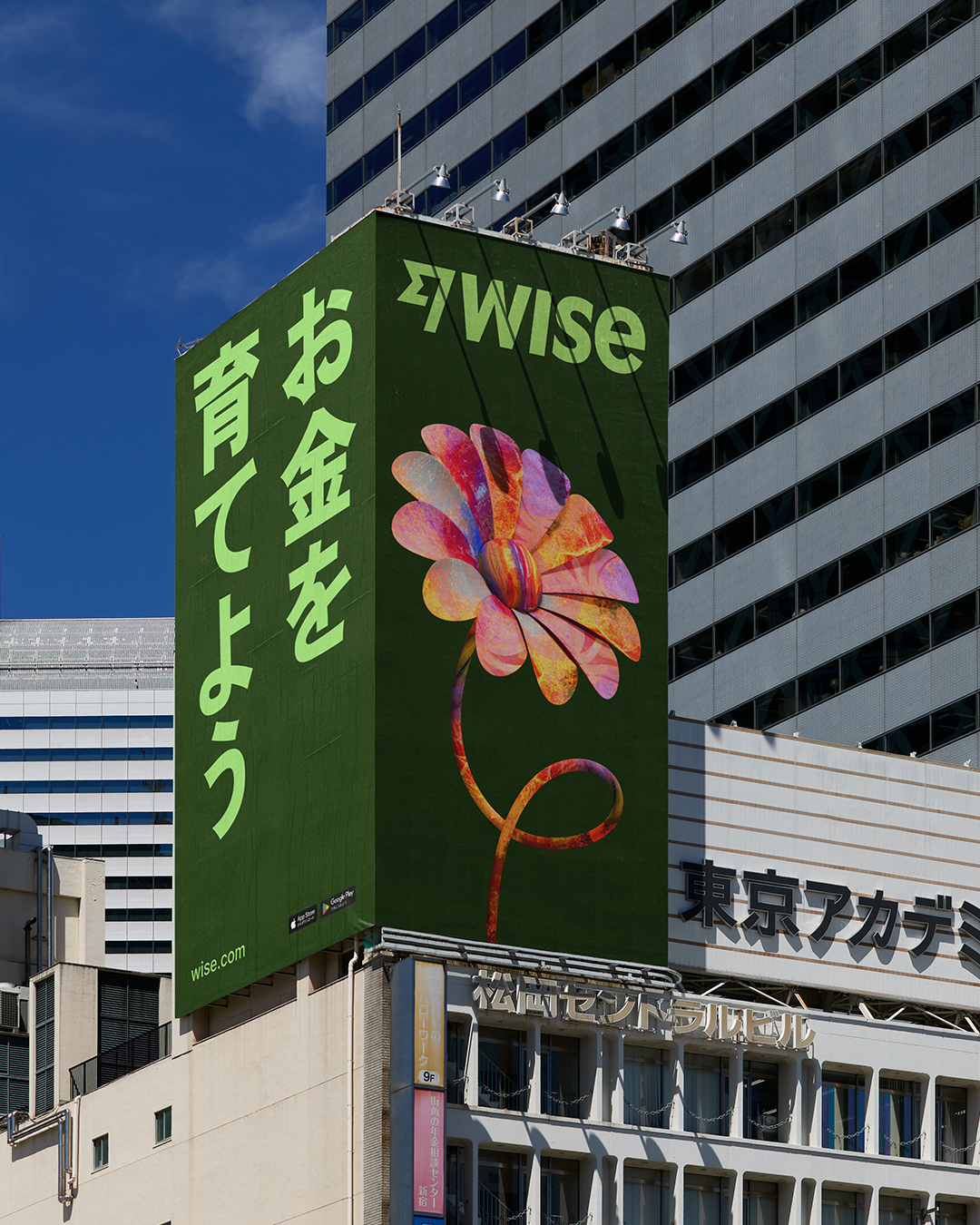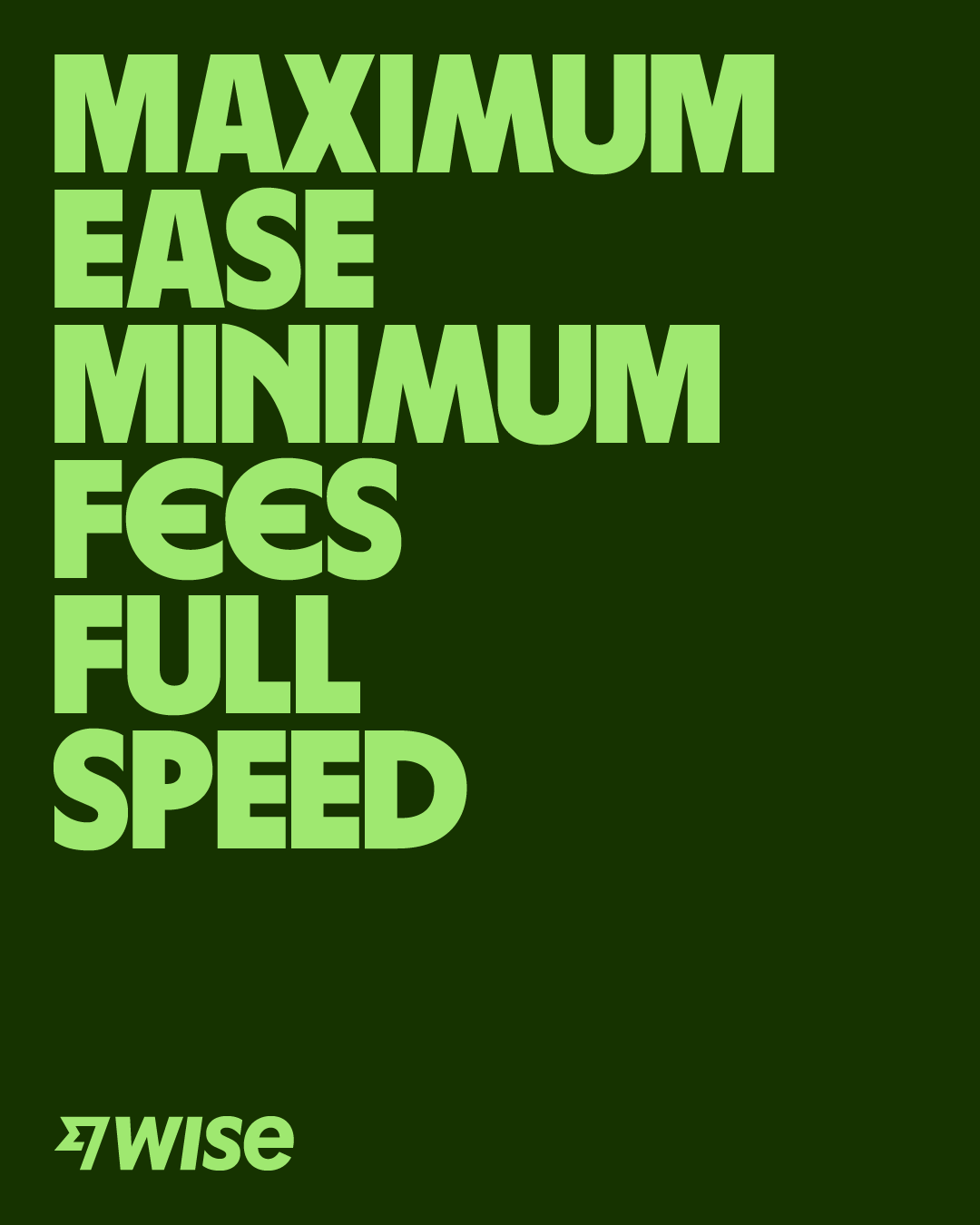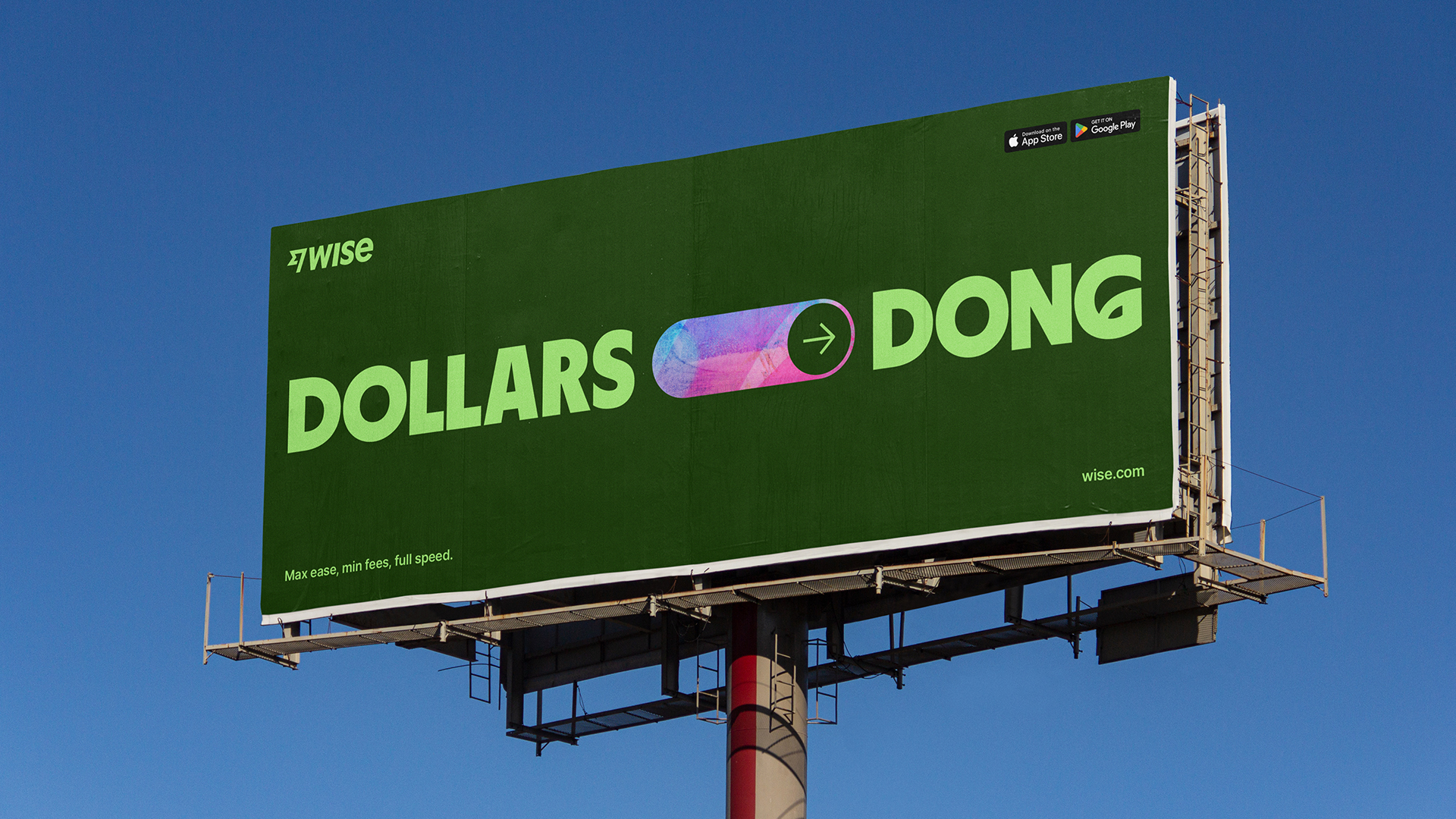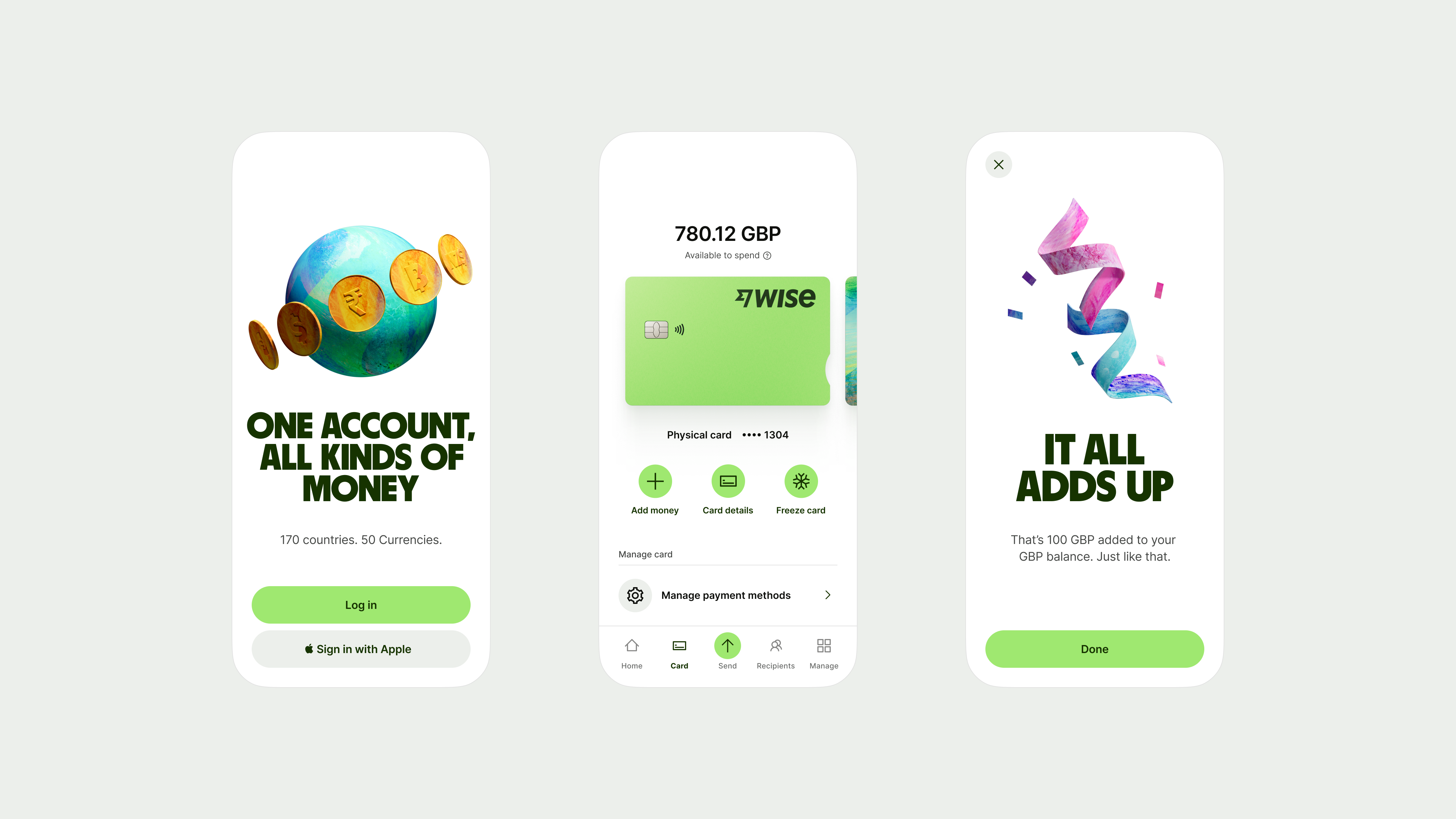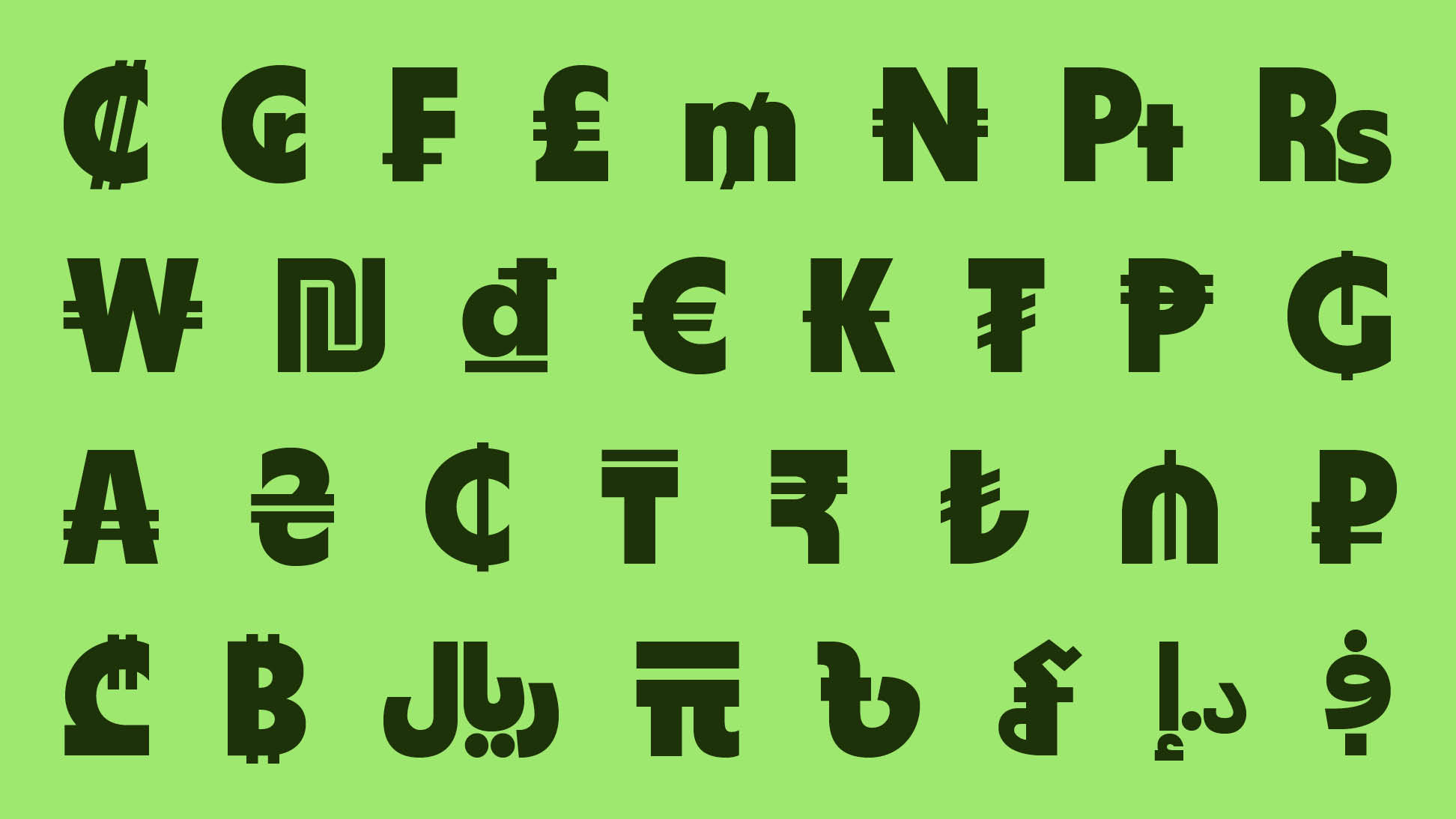
Wise
Typeface
Wise was launched 12 years ago, and the private banking market has never been the same since.
By changing how the world moves its money – making it even faster, cheaper and fairer than banks ever would – Wise has already empowered over 16 million people, saving them £1.5 billion (compared to bank fees) in 2022 alone.
Working with Ragged Edge to help direct the shift, Wise’s disruptive attitude continued when the brand pivoted from being a money transfer platform to a fully-fledged banking service. Beginning with a redrawn logo, we collaborated with the London-based design agency to craft a modification and extension of Feliciano’s Parafina typeface for the brand – expanding its language support to 361* different scripts across Latin, Cyrillic and Greek, whilst providing countless adjusted currency symbols alongside the basic Latin set.
In addition to the sans serif’s more rigorous, pragmatic functions, we also introduced a finely tuned set of custom alternates, carefully adjusting the regularity of their appearance in words and how they would integrate across a body of text. For this purpose, we developed a clever set of ligatures and contextual alternates, ensuring every letter combination and every word would look just right. The result? An original, proudly contemporary brand outfitted with a meticulous, marvellous custom tilting typeface.
We’re delighted to help inform and evolve the aesthetic landscape of financial institutions, helping once again prove that titling fonts can and should be done with care and precision.